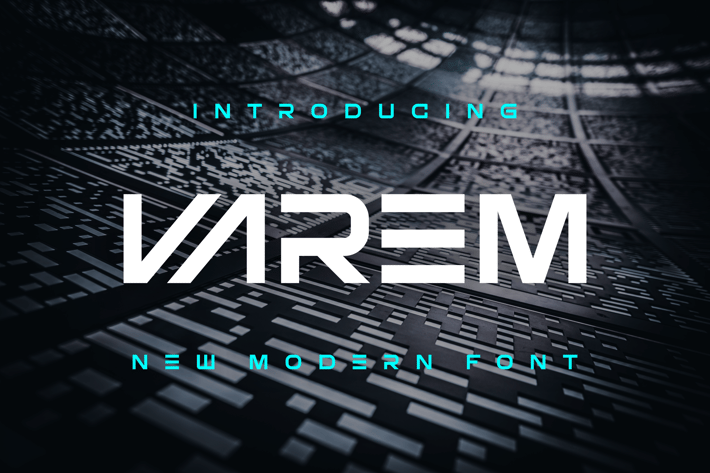
Varem - Modern Font
Introducing our new product Varem - Modern Font
Varem - Modern Font is a bold and authentic display font. The font is suitable for any branding project like logo, t-shirt printing, esport, and many more. outstanding in a wide range of contexts.